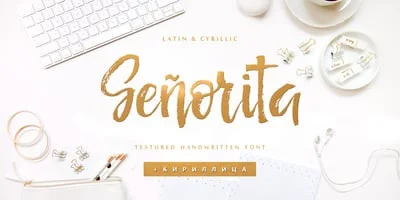
Senorita Cyrillic Script
Senorita Cyrillic Script Font
Senorita Cyrillic Script Font is perfect for Eastern European cultural festivals, Russian luxury brand marketing, Slavic heritage celebrations, elegant Cyrillic wedding invitations, sophisticated Russian restaurant branding, traditional Orthodox church materials, cultural exchange programs, and authentic Slavic artistic campaigns.
This font is exciting because it embodies Slavic elegance with Cyrillic sophistication and Eastern European cultural richness. Senorita Cyrillic Script Font features flowing script letterforms with traditional Cyrillic grace that capture the essence of Russian imperial beauty and Slavic cultural heritage, making it ideal for projects that require authentic Eastern European character and cultural reverence.
The Senorita Cyrillic Script Font family includes regular, light, bold, and ornamental variants, along with Cyrillic alternates and Slavic ligatures that enhance its cultural character. Each weight maintains the font's elegant aesthetic while providing different levels of cultural expression for various Eastern European and Cyrillic design applications.
Whether you're developing authentic Slavic brands, creating compelling cultural heritage materials, or designing sophisticated Eastern European campaigns, Senorita Cyrillic Script Font delivers exceptional elegance and cultural appeal. Its distinctive Cyrillic style makes it an excellent choice for designers seeking to add genuine Russian sophistication and Slavic cultural authenticity to their projects. The font's versatility extends from cultural institution branding to heritage celebration materials, ensuring consistent performance across all Slavic applications. With its culturally crafted letterforms and Cyrillic proportions, this typeface provides professional results that honor Eastern European traditions and establish powerful cultural presence with its unmistakable Slavic character and traditional Cyrillic elegance.